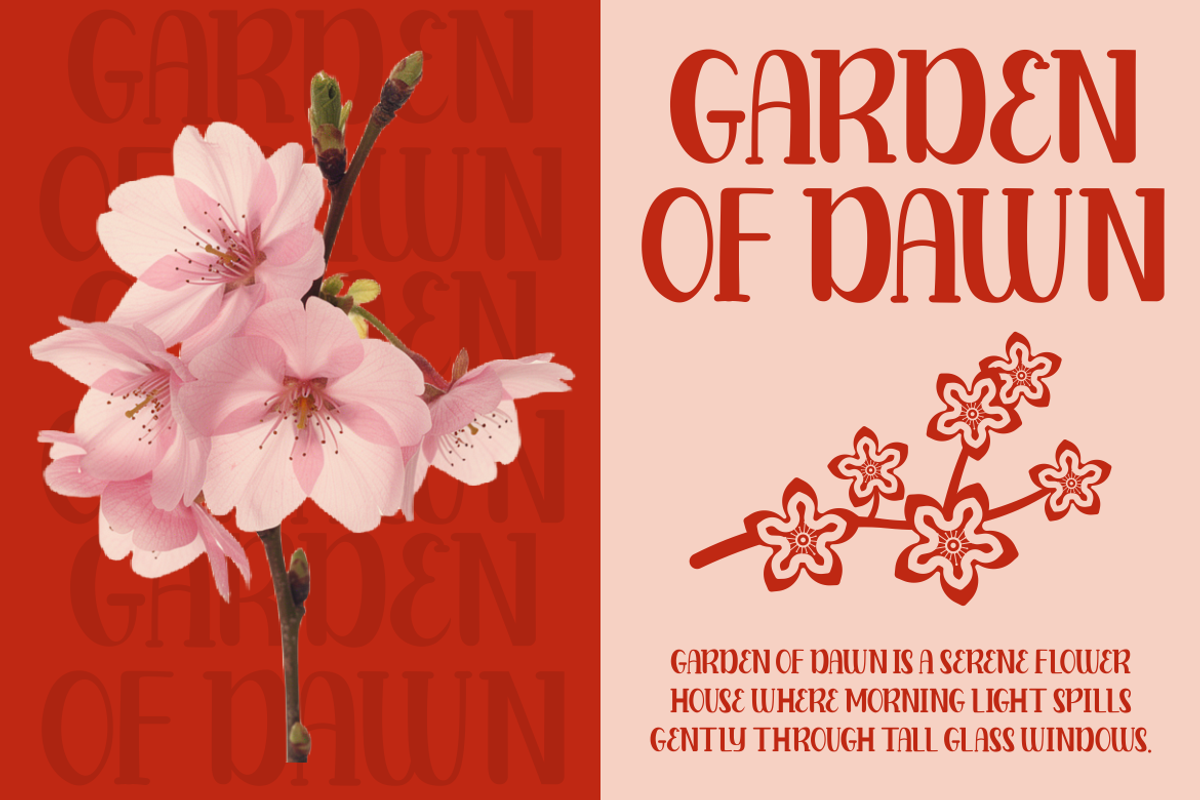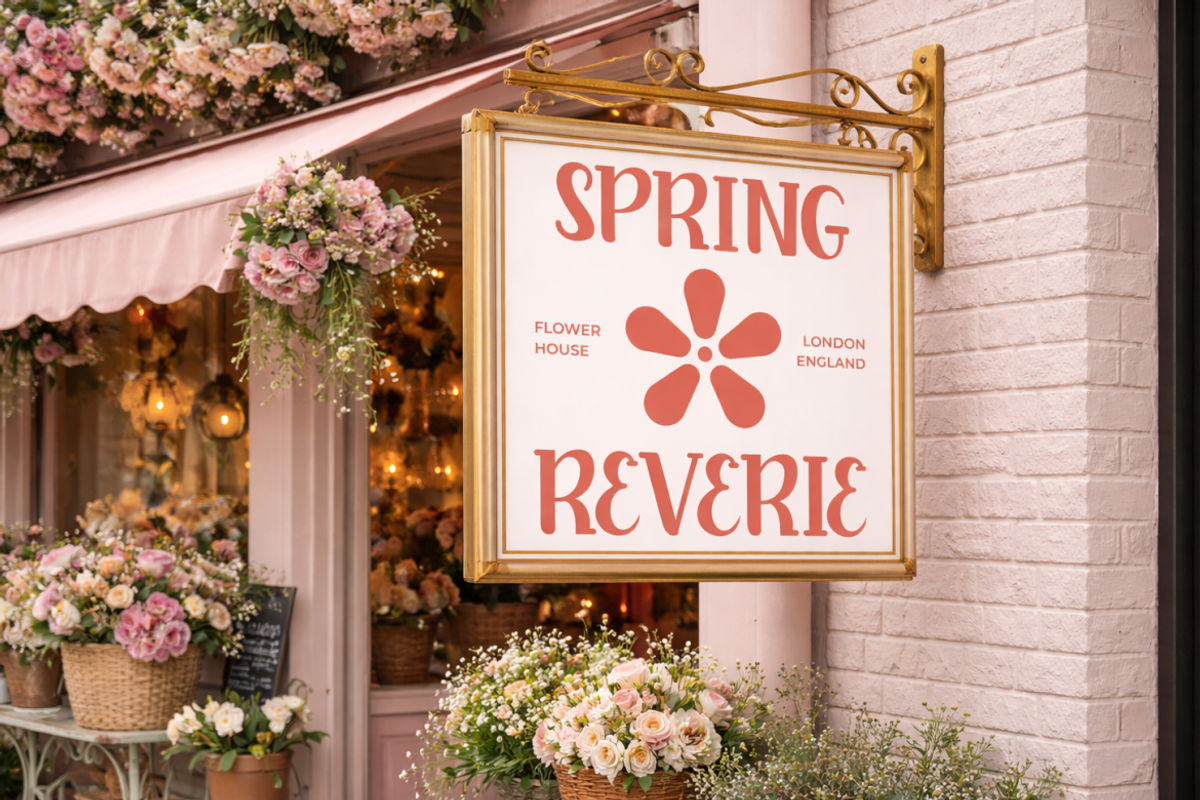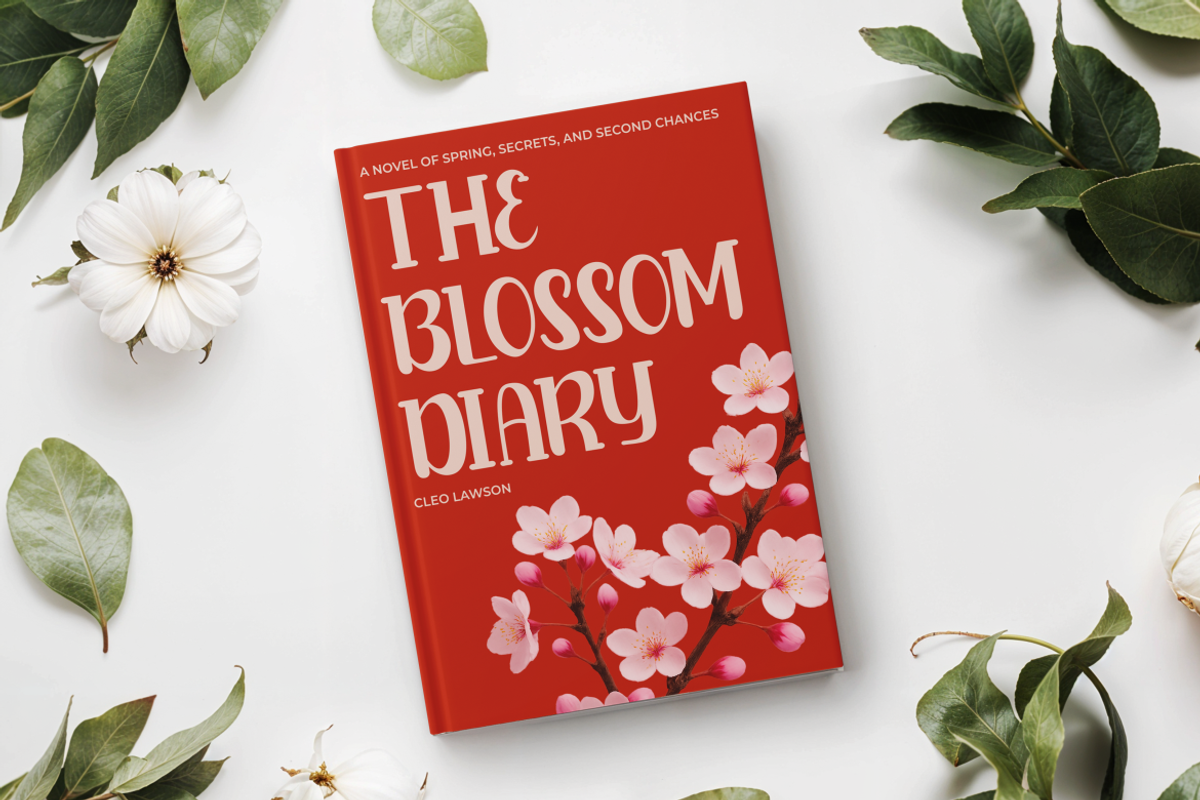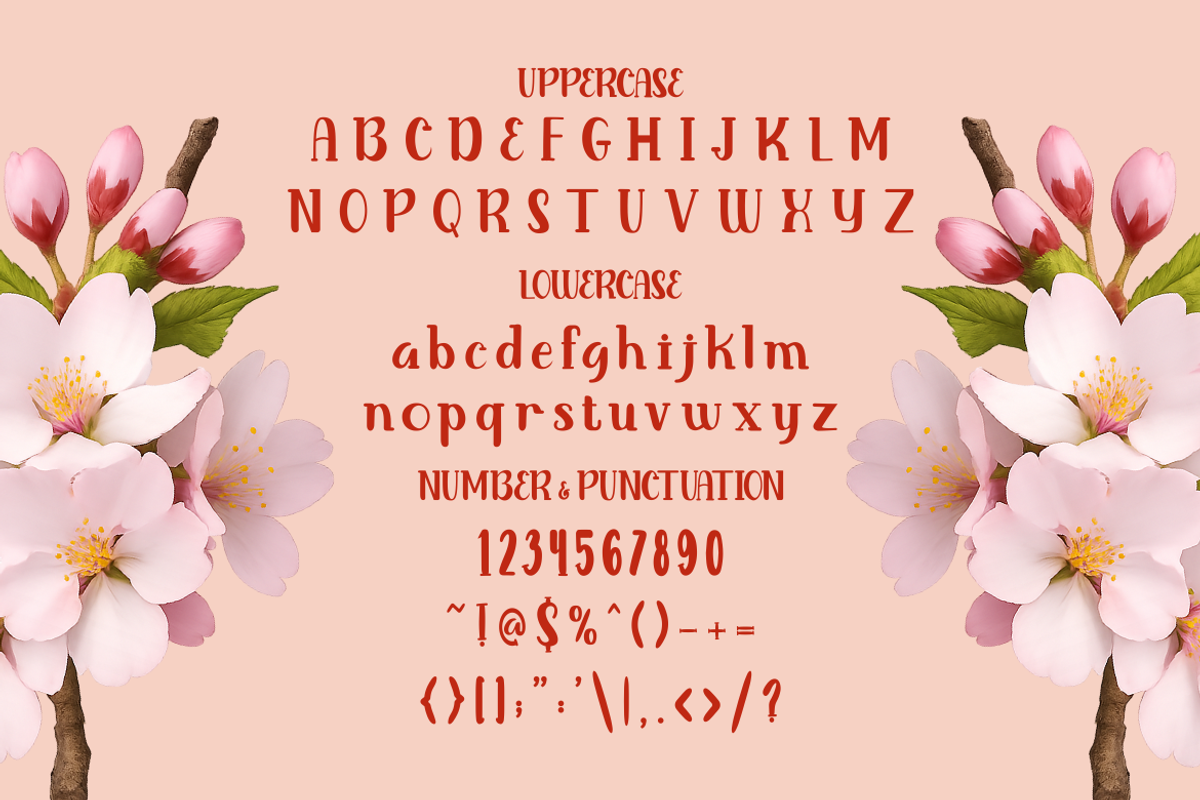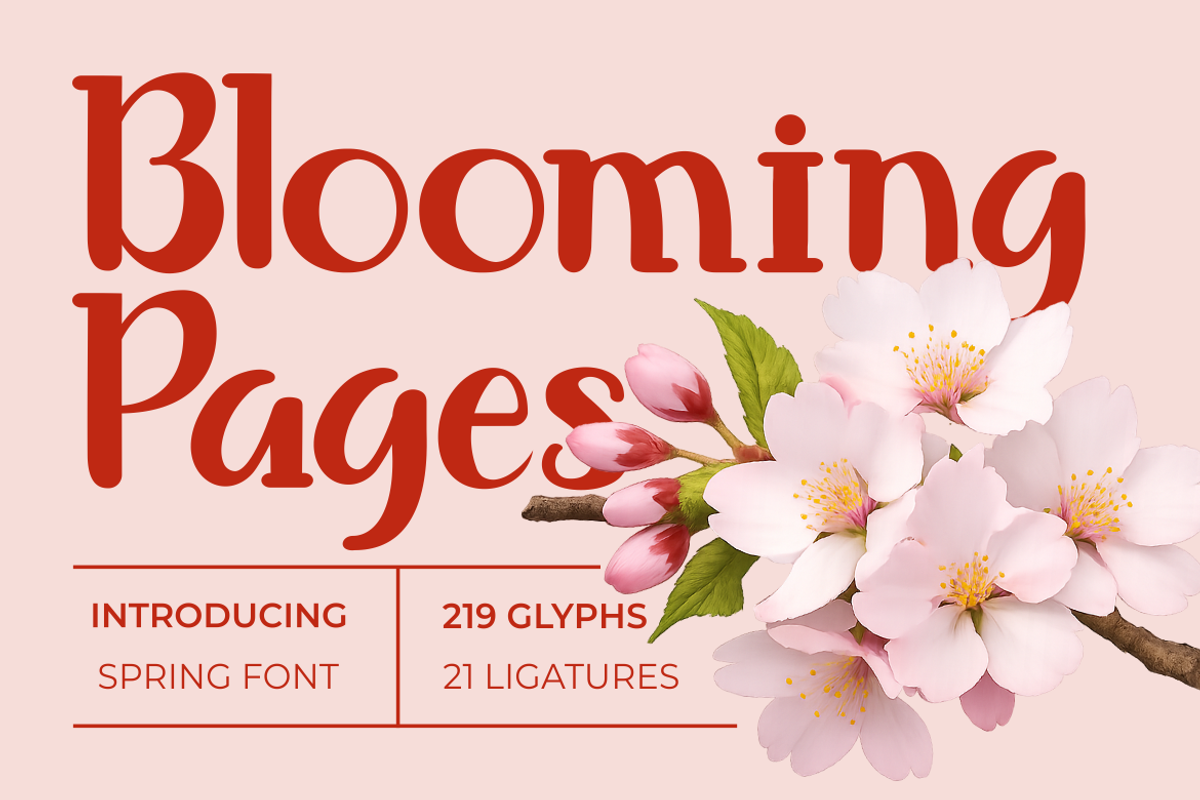
Blooming Pages Spring Font
Blooming Pages Spring Font blends graceful serif charm with a fresh seasonal mood. The letters appear tall, slim, and softly curved, creating a refined silhouette with clear readability. Stroke contrast feels balanced, while rounded terminals add warmth and a handcrafted touch. Decorative alternates and ligature details bring gentle movement without losing structure. This style feels romantic, botanical, feminine, vintage, and modern at once. It suits branding that needs elegance with personality. Blooming Pages Spring Font works beautifully for wedding planners, flower shops, beauty studios, candle labels, gift stores, event brands, and boutique businesses. Use it for logos that need softness, trust, and memorable character.
The font performs well in headlines, invitations, book covers, greeting cards, packaging, menus, posters, stickers, magazine titles, and social media campaigns. Uppercase letters create graceful statements, while lowercase forms feel friendly and intimate. Narrow proportions help long names stay stylish in limited spaces. Curved serifs and subtle flourishes add decorative appeal for premium storytelling. This typeface matches themes such as spring markets, garden events, bridal collections, romantic cafés, artisan products, and wellness brands. It also suits film titles, quote designs, crafting projects, and storefront signage. Every layout gains a calm, polished, and blooming presence that draws attention naturally.